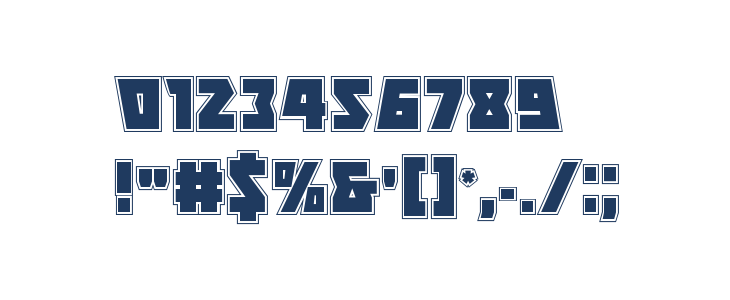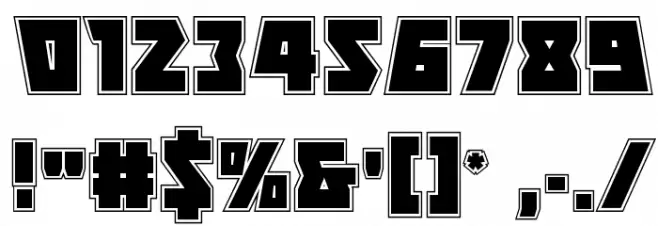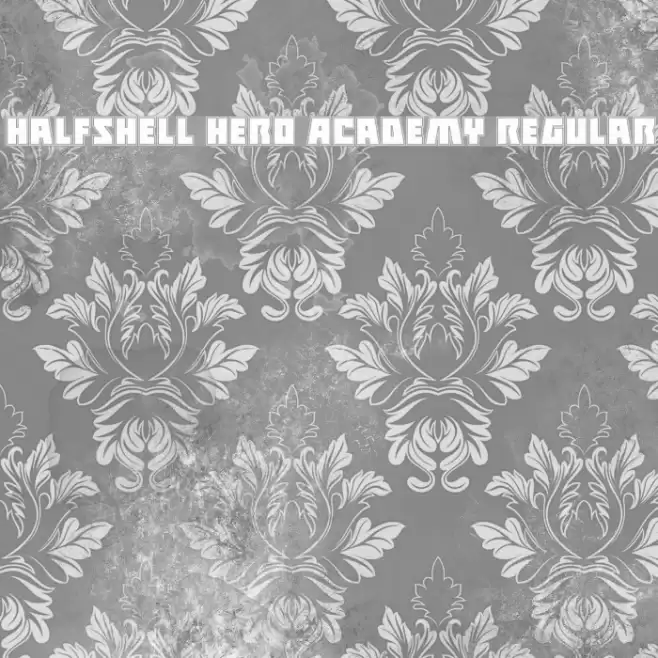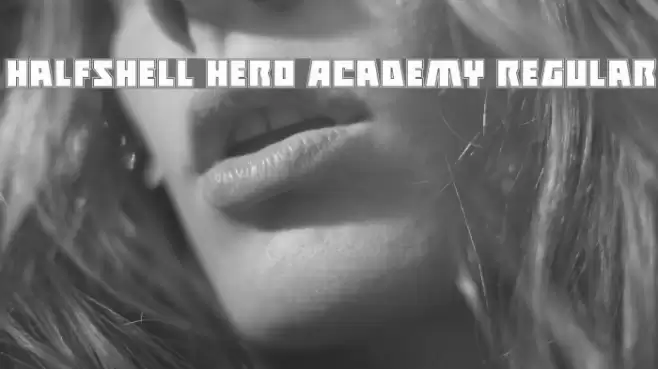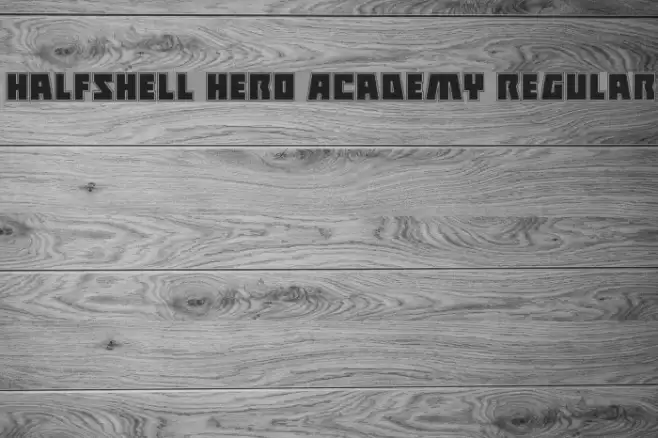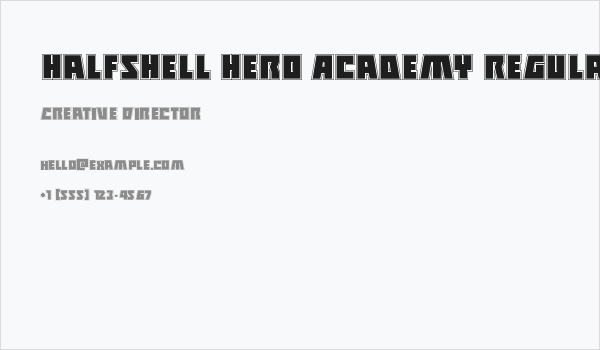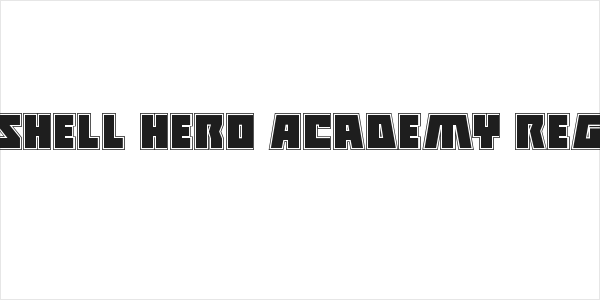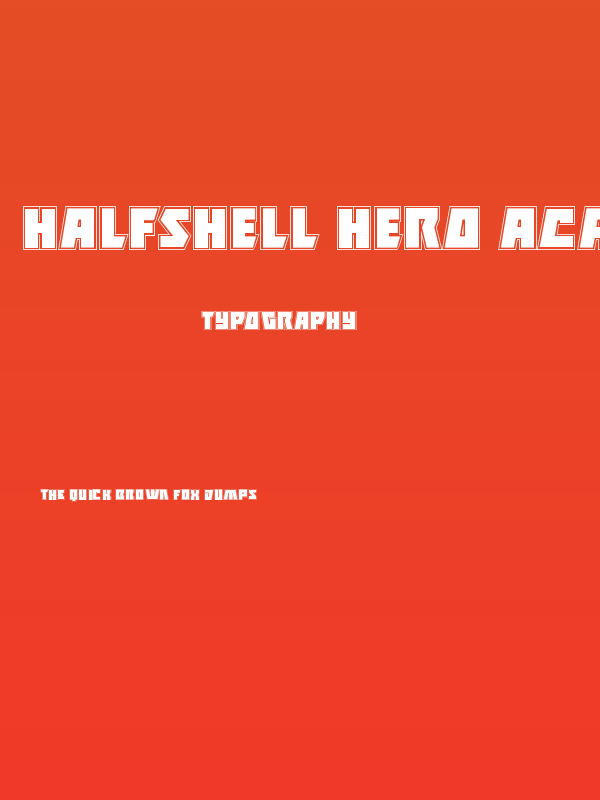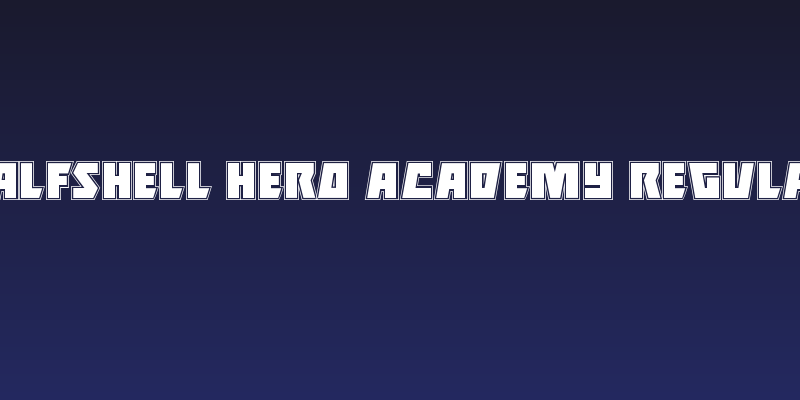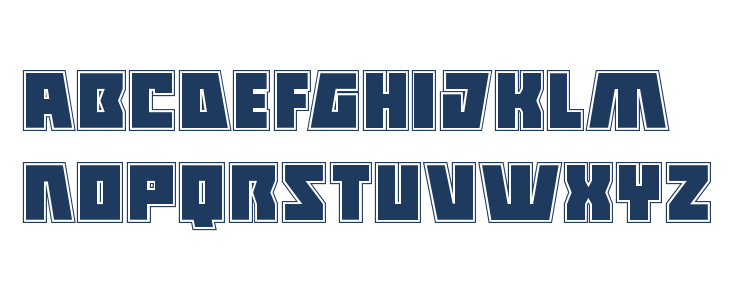
Halfshell Hero Academy Regular Font
Halfshell Hero Academy Regular Description
This bold and dynamic font features a striking, angular design with a strong presence. Each character is outlined, creating a three-dimensional effect that adds depth and emphasis. The uppercase letters are particularly prominent, with sharp edges and a blocky structure that conveys a sense of strength and modernity. The numbers and special characters maintain this bold style, ensuring consistency across all elements. This font is ideal for projects that require a bold statement and a contemporary feel.
| Proposed Projects | Perfect for video game titles, sports team logos, posters, and any project needing a bold, modern look. |